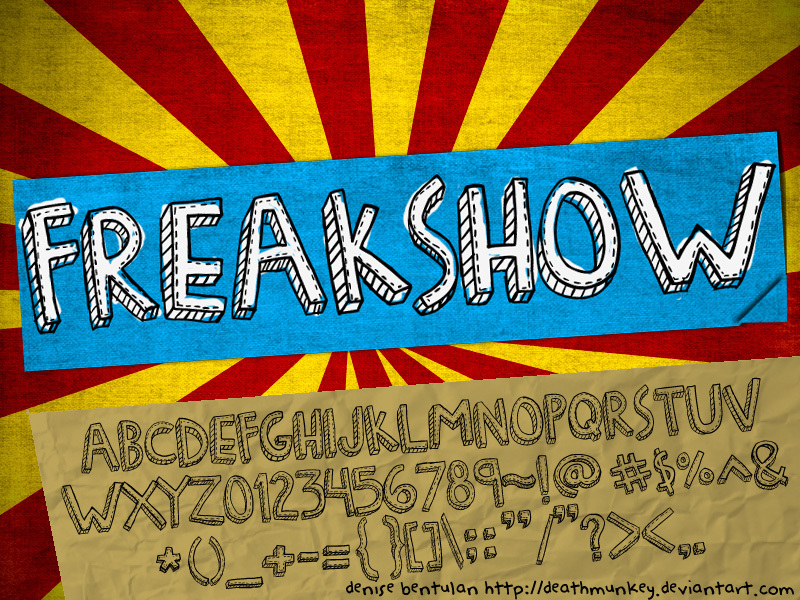
Denne Freakshow by Denise Bentulan is a free cartoon 3D display font with towering, uneven capitals and a lively hand-drawn finish. Striped side faces, doubled contours, and loose dashed details make the letters resemble cutout props from a homemade sideshow sign.
Its pen-and-ink texture connects easily with comic illustration and carnival artwork, where the lettering can share the same drawn surface as the pictures. That theatrical construction also suits event posters, children's entertainment, and playful merchandise. On packaging, the striped depth can turn a product name into part of an illustrated booth sign or fairground emblem rather than ordinary labeling.